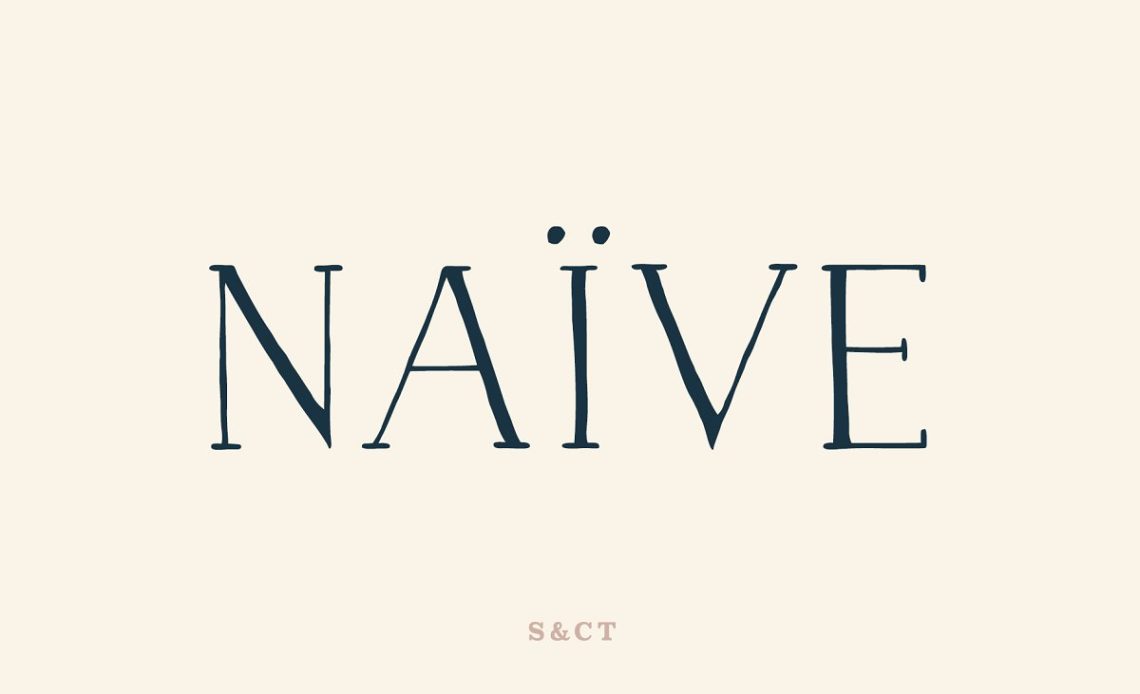
Looking for a font collection that will give your designs a human and whimsical touch? Look no further than the Naive Font Collection! Created by S&C Type, Naïve is a unique and subtle Parisian handwritten font designed by Fanny Coulez and Julien Saurin in Paris. With finely irregular lines, this serif font family includes three weights: Light, Medium, and Bold, along with two alternates fancy glyphs for each letter, known as the “Fantaisies.”
But what sets the Naive Font Collection apart is its ability to bring a poetic and unusual feeling to your designs. The Fantaisies glyphs add a touch of whimsy and individuality that will make your designs stand out. The Naïve Font Collection is perfect for any project that requires a touch of elegance and personality, from branding to wedding invitations to social media graphics.
This pack includes six fonts: Naïve Light, Naïve Medium, Naïve Bold, Naïve Fantaisies Light (with two alternate designs by glyph, uppercase and lowercase), Naïve Fantaisies Medium, and Naïve Fantaisies Bold. And if you love this collection, you'll love our Naïve superfamily that contains a variety of variations, including Line, Inline, Serif, Sans Serif, and a special Art Deco font. Just click on our foundry name to see them all!